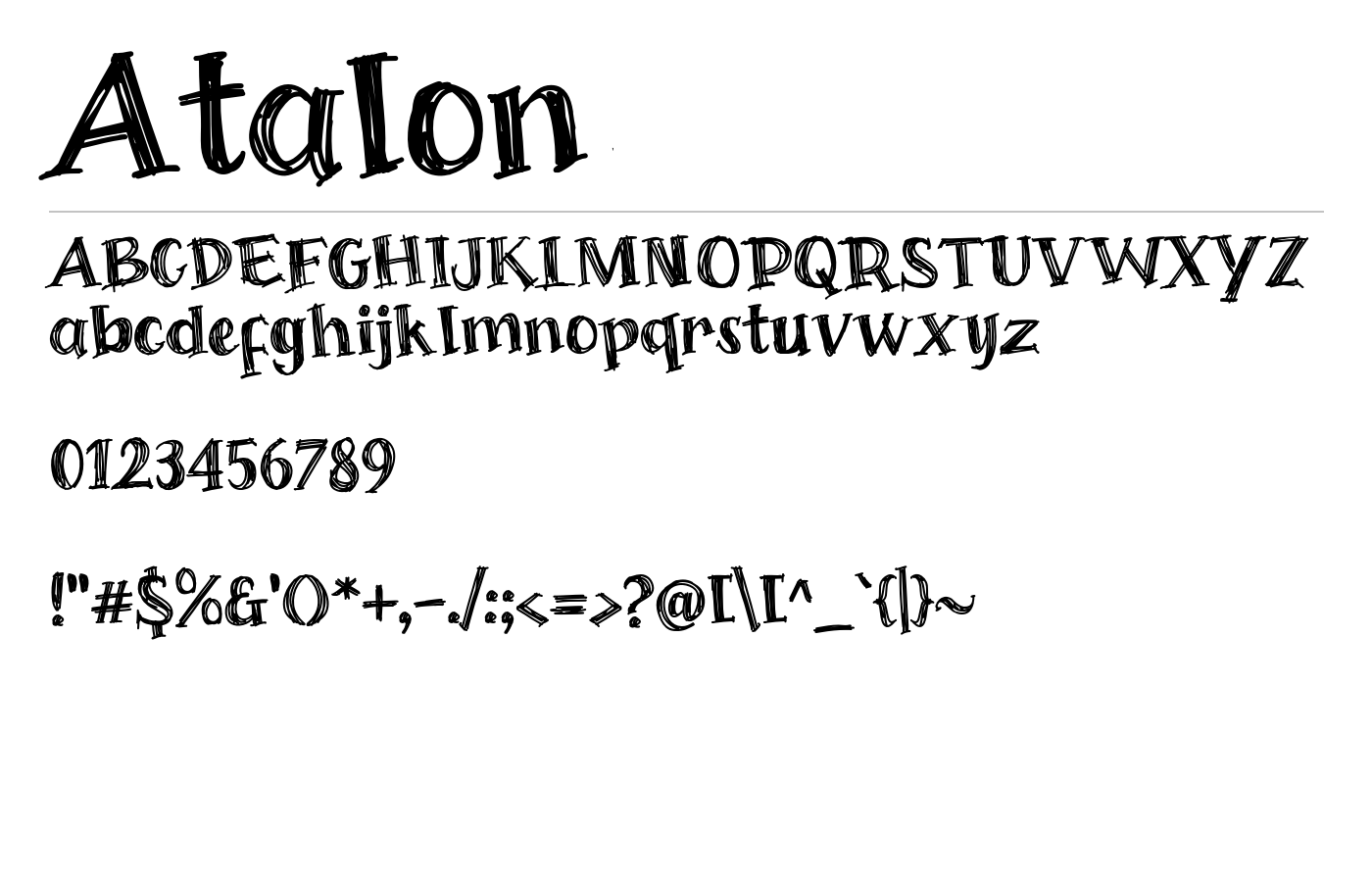
Atalon is a playful serif font with a hand-drawn, sketchy appearance that brings a lively and creative spirit to any design. Its irregular stroke weights and whimsical serifs create a unique, informal tone, making it ideal for artistic projects, children’s books, or casual branding that seeks charm and personality. This font works best in headlines, posters, or any setting where a fun, distinctive look is desired to stand out.
Atalon Font
About Atalon Font
| Designer | Musthafa Kamal Emje - Afkari Studio |